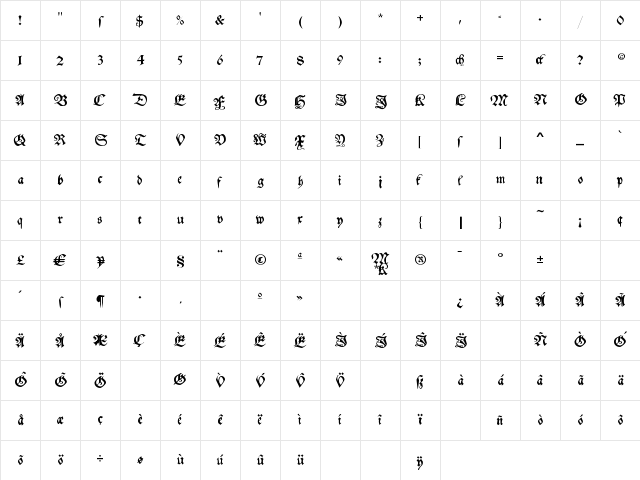
MyElectronicSchwabach Regular
Design Context for MyElectronicSchwabach
MyElectronicSchwabach is a composed and adaptable typeface that performs quietly and consistently across a wide range of design contexts.